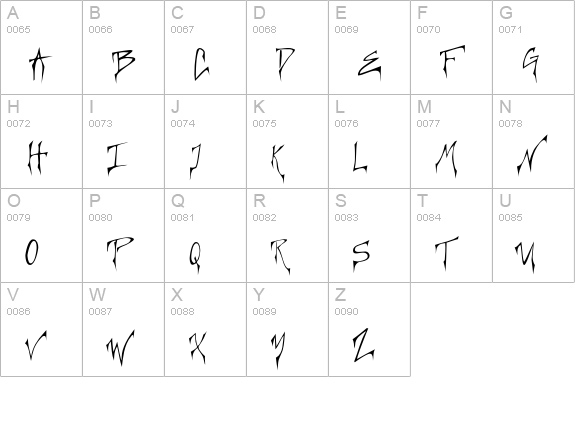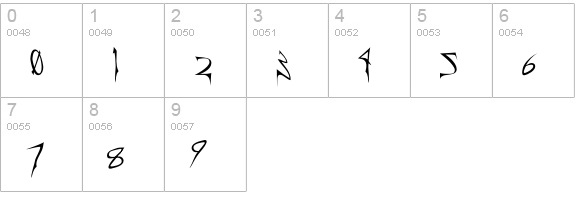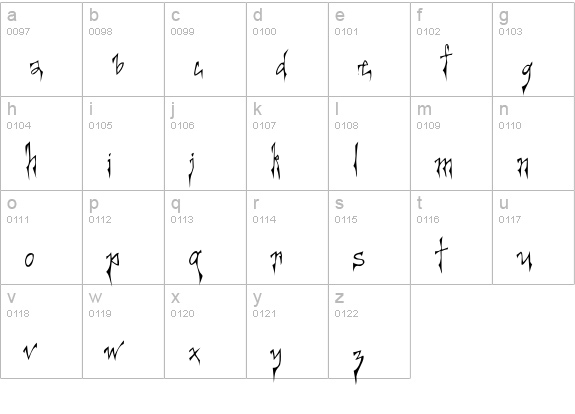
Creepygirl-Regular is the standard, neutral variant in the Creepygirl typeface family \xE2\x80\x94 well suited to general body text, paragraphs, and standard typographic work.
Creepygirl-Regular font is a hauntingly unique typeface that exudes an eerie charm and a touch of mystery. With its jagged edges and slanted letters, this font perfectly captures the essence of a spooky and unsettling atmosphere. Whether you're working on a Halloween-themed project, a horror movie poster, or simply want to add a creepy touch to your design, Creepygirl-Regular is the perfect choice. What makes Creepygirl-Regular even more appealing is that it is completely free to download at FontsMarket.com. This means you can easily access this chilling font and use it in your projects without any cost involved. So go ahead, unleash your creative spirit and let Creepygirl-Regular add a spine-chilling vibe to your designs!